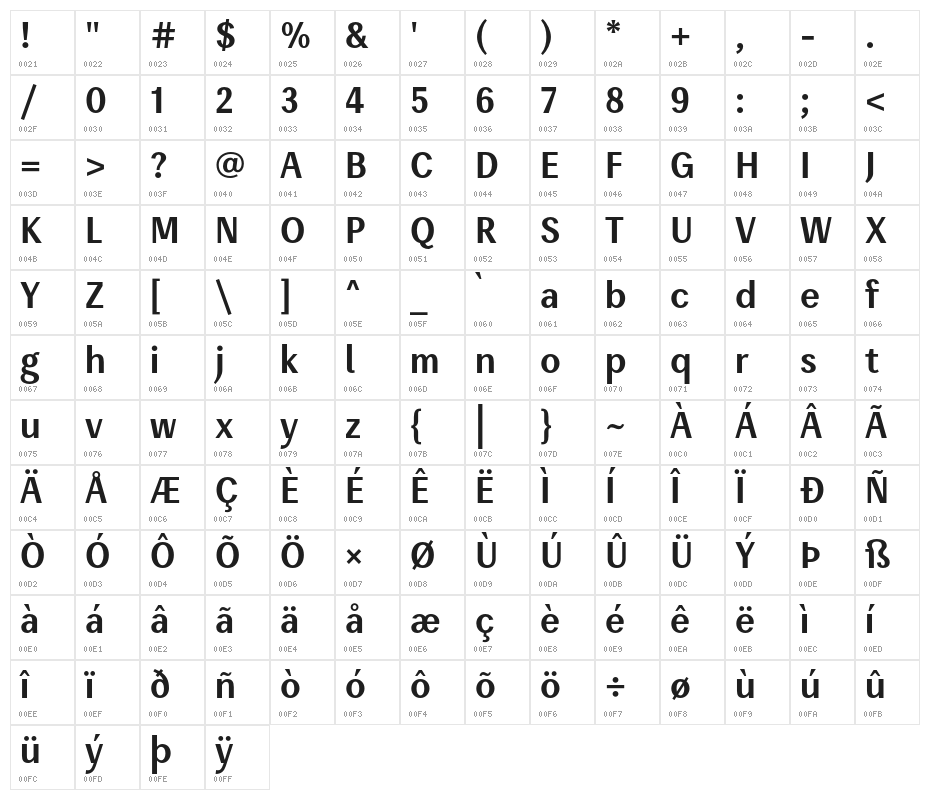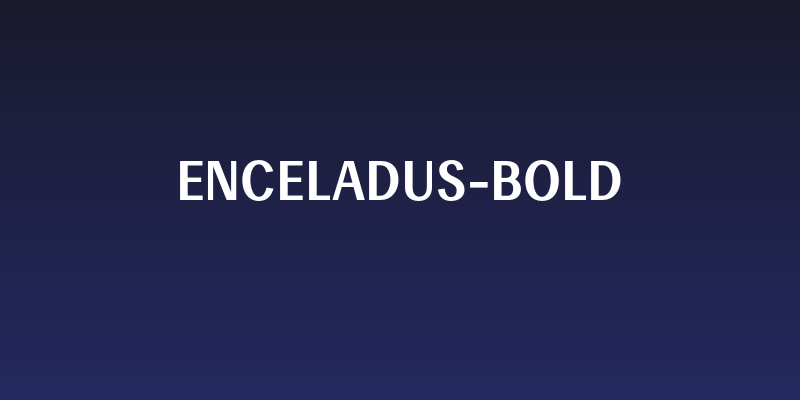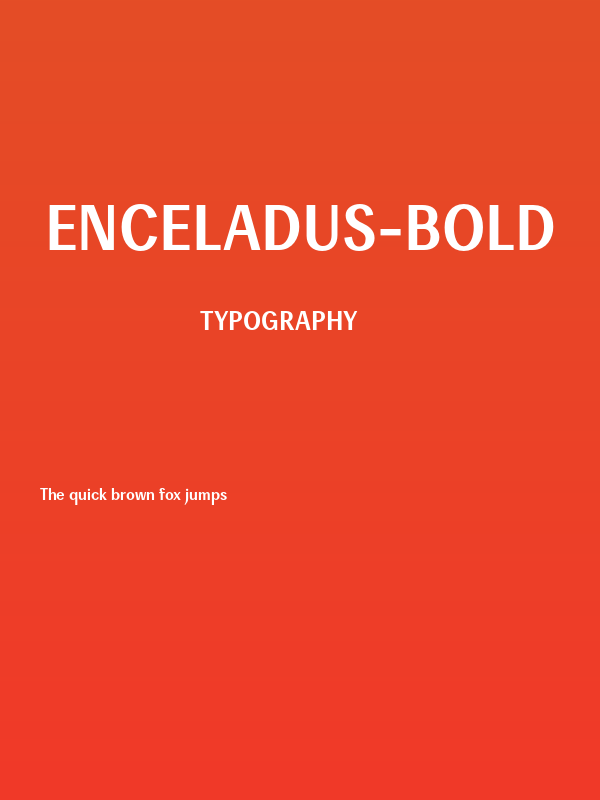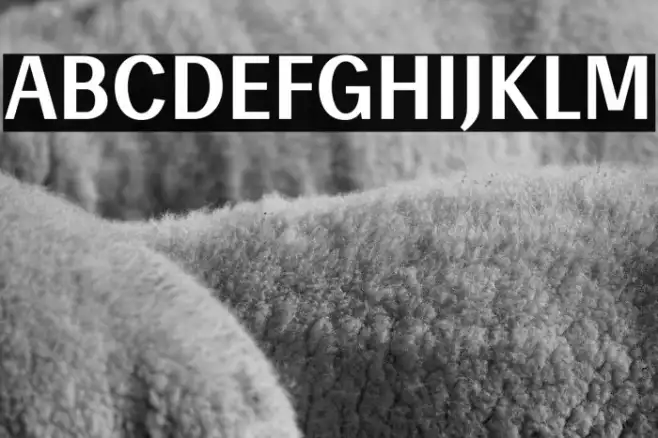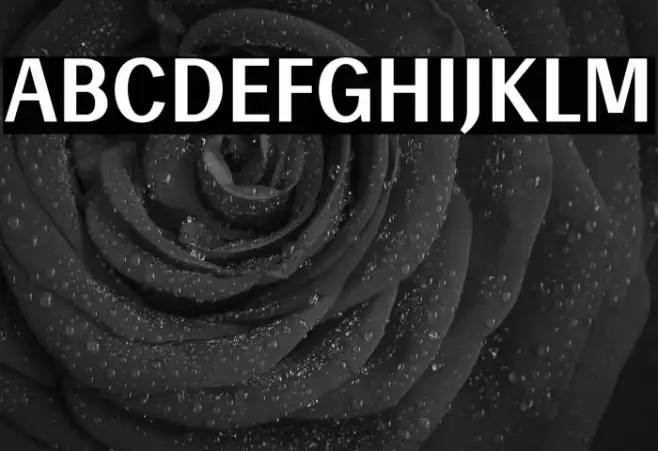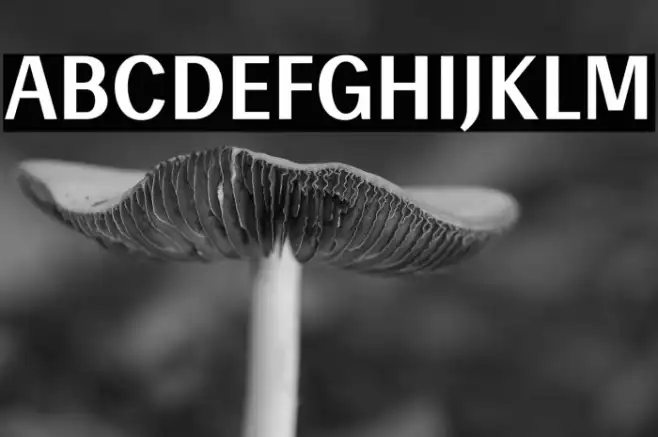
Enceladus-Bold Font
Enceladus-Bold Description
This font exhibits a strong and modern sans-serif style with clean lines and a bold presence. The characters are well-defined with a uniform stroke width, contributing to its readability and impact. The uppercase letters are tall and commanding, while the lowercase letters maintain a consistent height, ensuring a harmonious appearance. The numerals are clear and distinct, making them suitable for various applications. Special characters are included, enhancing its versatility. Overall, this font conveys a sense of professionalism and clarity, making it ideal for both digital and print media.